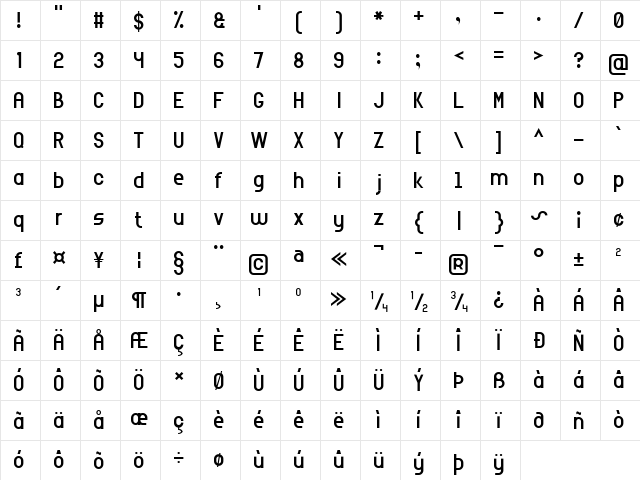
Arial Narrow 7 Regular
Foundry: Style-7
Designer: Sizenko Alexander
Design Context for Arial Narrow 7
Arial Narrow 7 is a composed and adaptable typeface that performs quietly and consistently across a wide range of design contexts. Its narrow stance lets it pack a punch even in space-constrained designs.